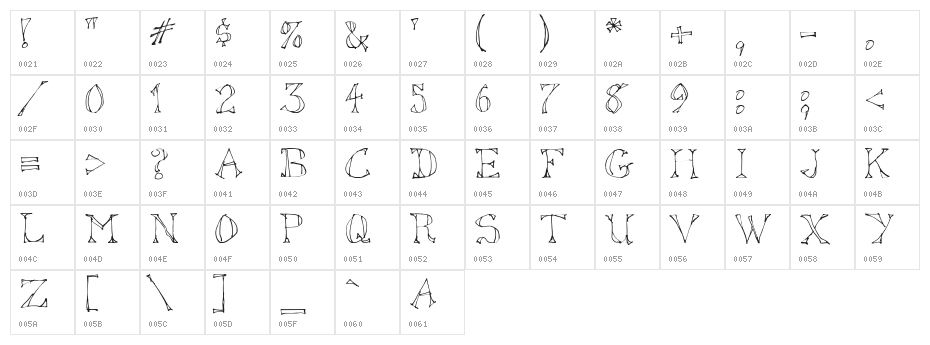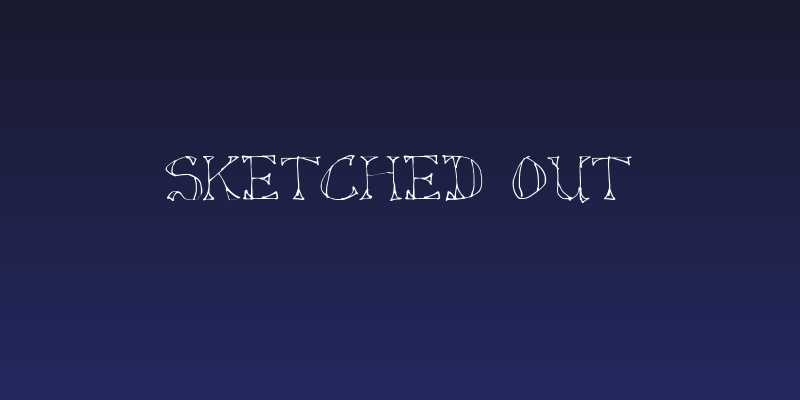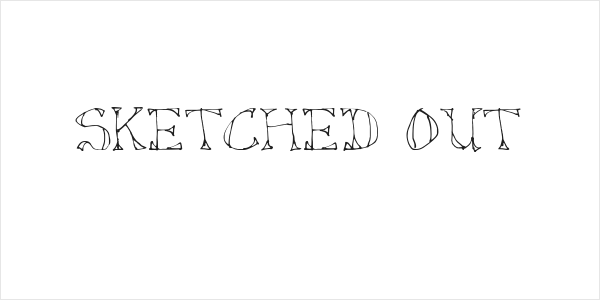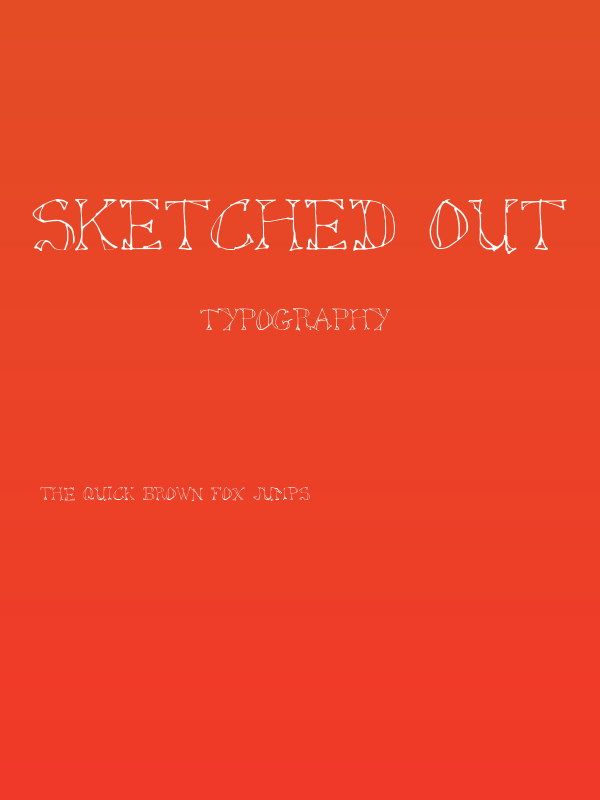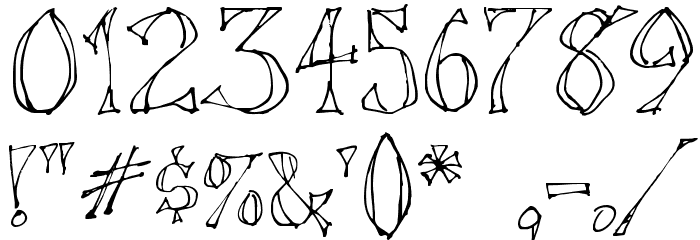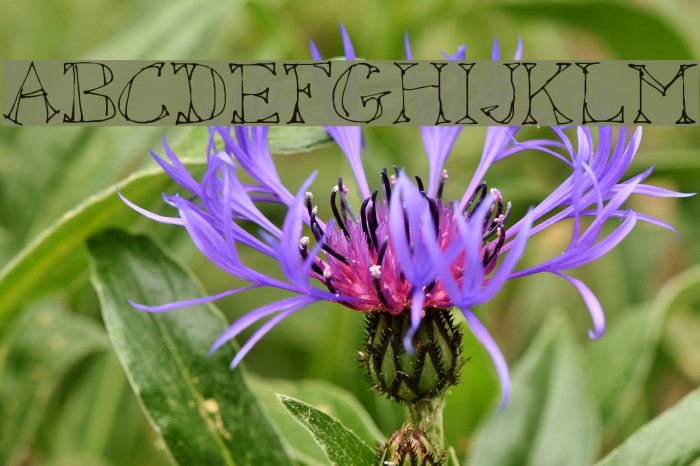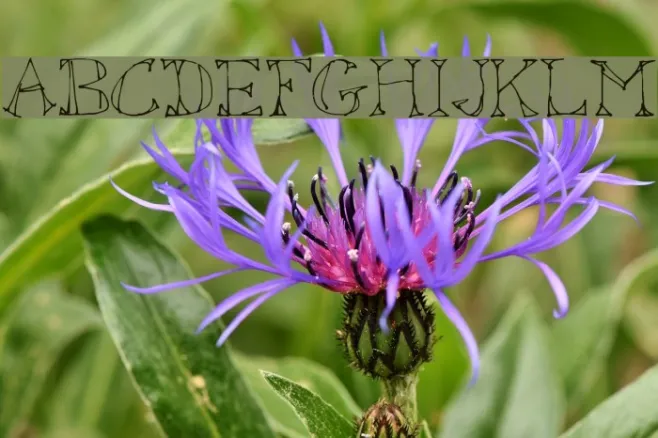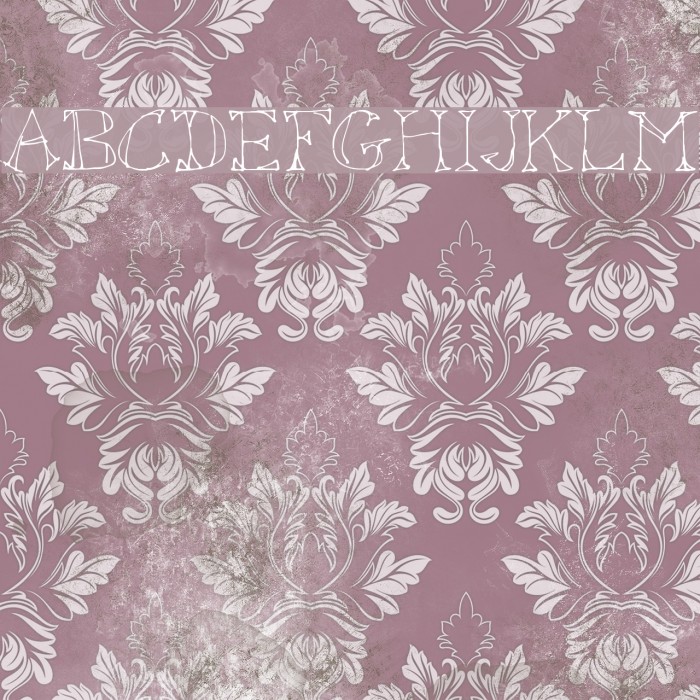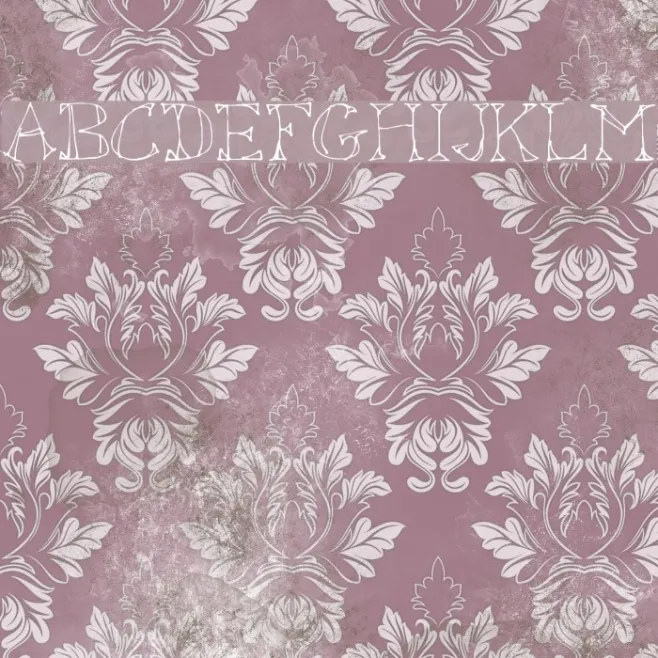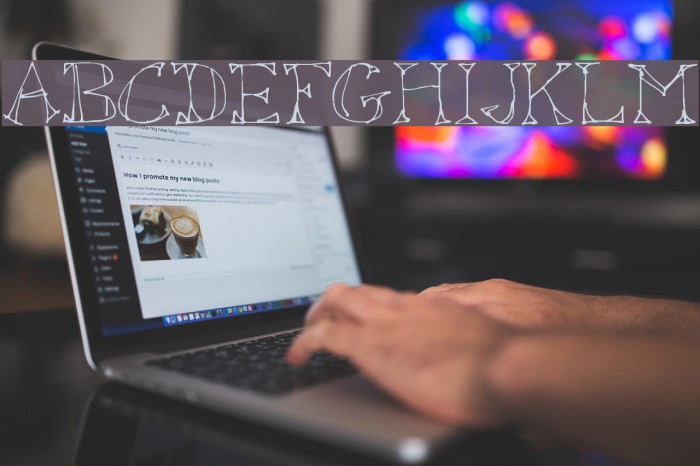
Sketched Out Font
Sketched Out Description
This font features a unique, hand-drawn style that gives it a playful and artistic appearance. Each character is outlined with irregular, sketch-like strokes, creating a sense of movement and spontaneity. The letters are slightly uneven, adding to the whimsical and informal feel of the font. The uppercase and lowercase letters maintain a consistent style, with exaggerated curves and angles that enhance the sketched effect. Numbers and special characters follow the same design principles, ensuring a cohesive look across all elements. This font is perfect for projects that require a creative and informal touch, such as children's book covers, greeting cards, or artistic posters.
| Overall Style | Artistic, Whimsical |
| Proposed Projects | Ideal for children's books, greeting cards, artistic posters, and creative branding. |